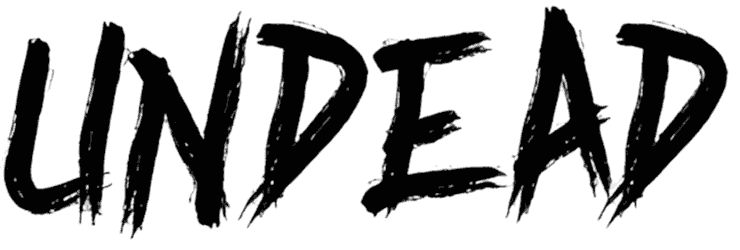
Spartwell Font
Get this brush font if the appearance of your text layouts matters. Spartwell comes with narrow characters and can be perfect for logos, posters, flyers, and so forth. Just give it a shot and see how fantastic your designs appear. Don’t waste time and hit the download button of this beach script font without further delay.